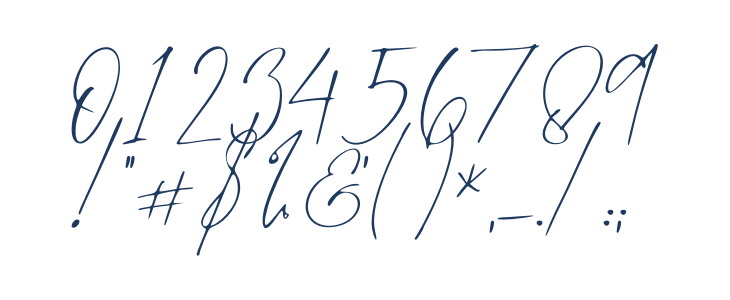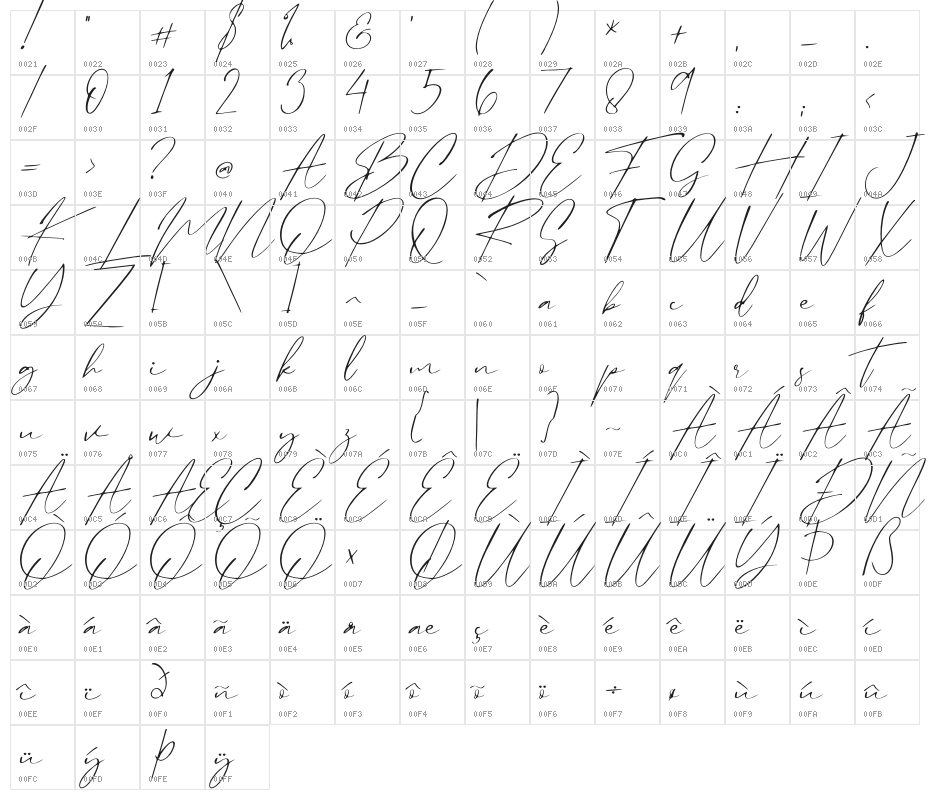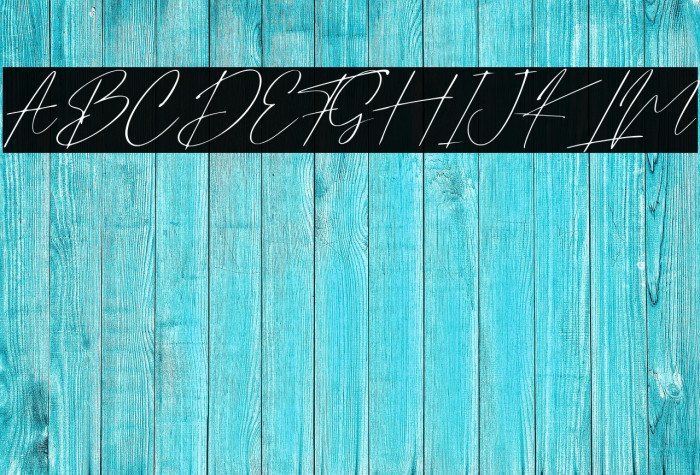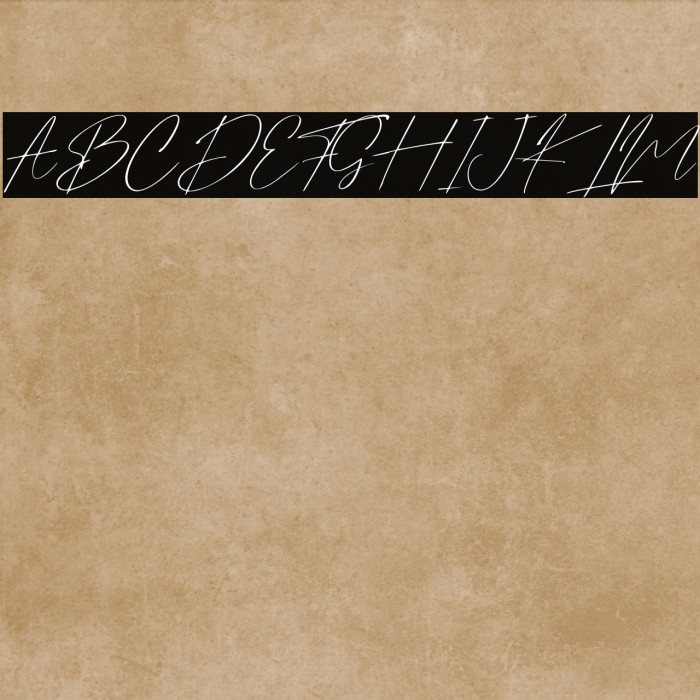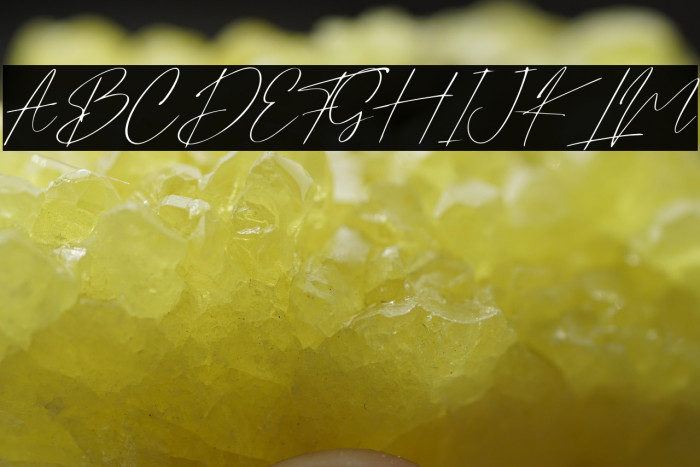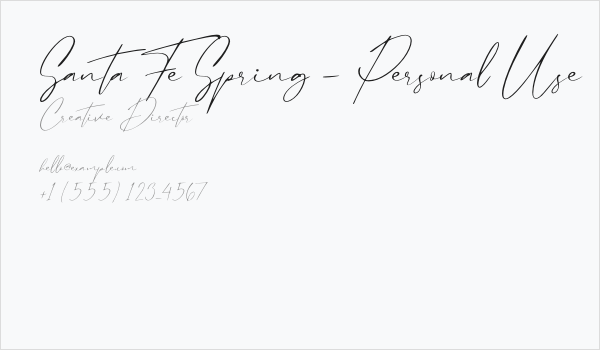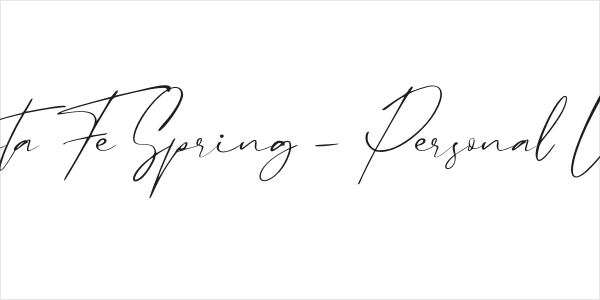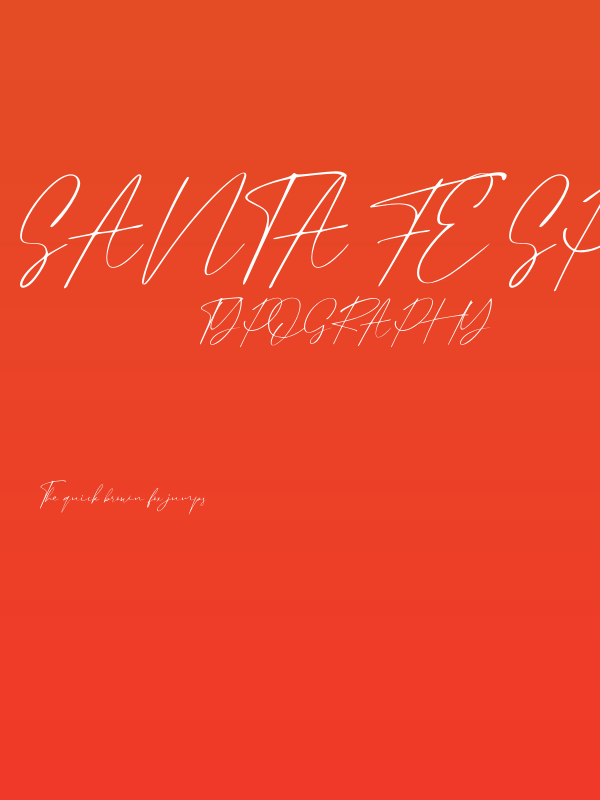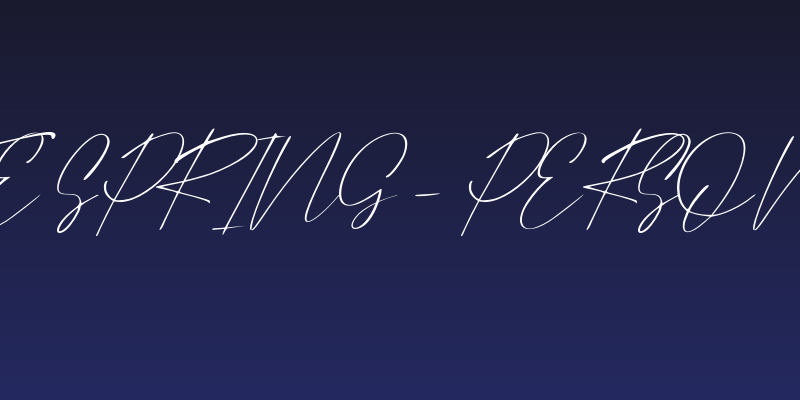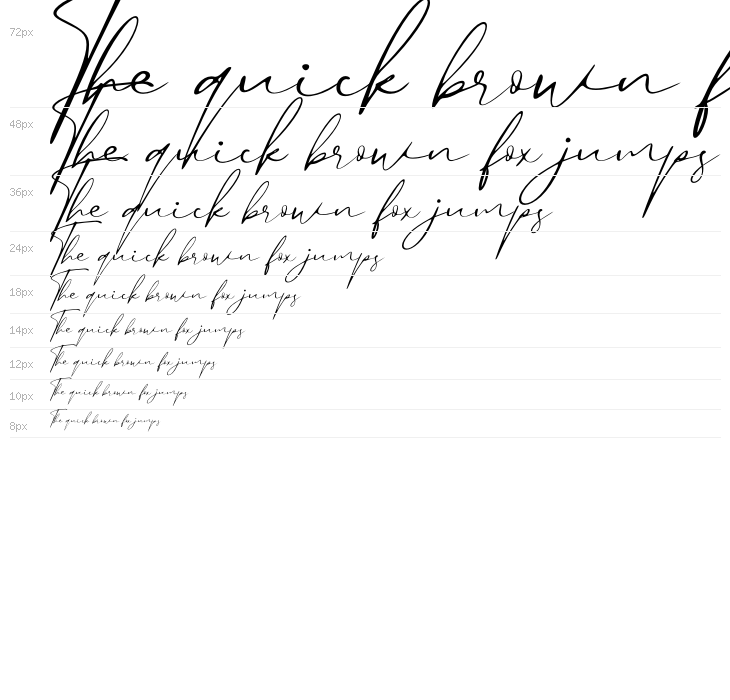
Santa Fe Spring - Personal Use Font
Santa Fe Spring - Personal Use Description
This font exudes a sense of elegance and fluidity, characterized by its cursive, handwritten style. The letters are interconnected with smooth, flowing lines, giving it a sophisticated and artistic appearance. The uppercase letters are tall and slender, while the lowercase letters maintain a consistent flow, enhancing readability despite the script style. The numerals and special characters are crafted with the same attention to detail, ensuring a cohesive look throughout. This font is perfect for projects that require a personal touch, such as invitations, greeting cards, or branding materials that aim to convey elegance and creativity.
| Overall Style | Elegant, Artistic |
| Use Case | Headlines, Invitations, Branding |
| Proposed Projects | Ideal for wedding invitations, personal branding, greeting cards, and artistic projects. |